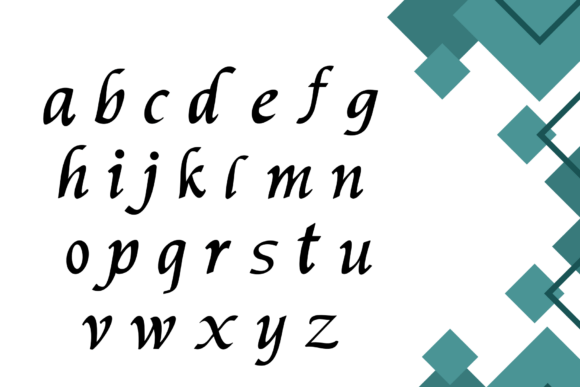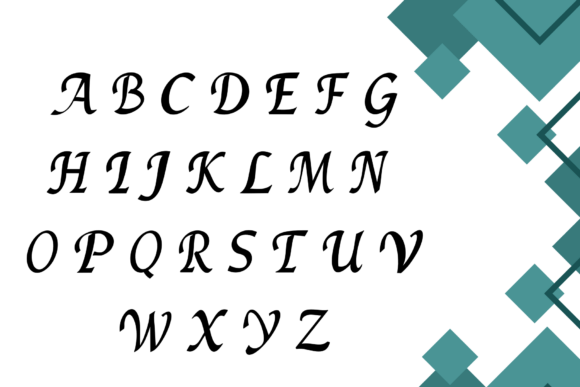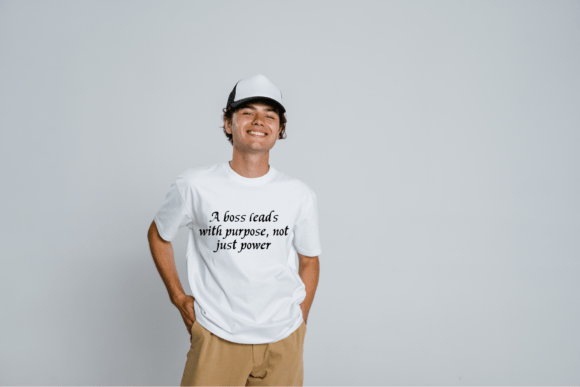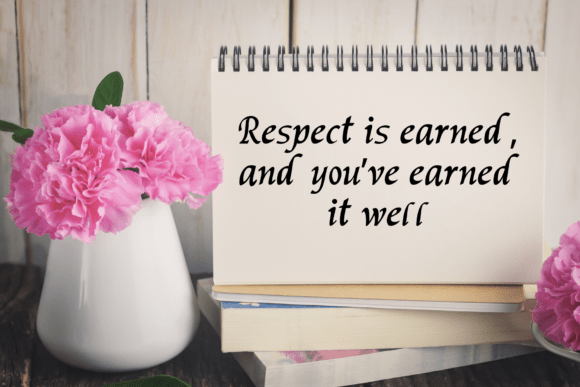
The Perfect Font for the Big Boss
Have you ever stared at a blank page, trying to come up with the perfect way to express your appreciation for your boss on Boss Day? We’ve all been there. The struggle is real, but what if you could find a font that does all the talking for you? Enter the Boss Day Font, a sophisticated decorative serif font designed to make a bold and refined statement.
This elegant font is perfect for making a lasting impression on your boss, whether it’s through a heartfelt card or a professional certificate. With its unique letterforms and eye-catching flow, the Boss Day Font adds a touch of classic elegance with a modern twist, making it ideal for designers looking to convey authority, appreciation, and tasteful design.
Boss Day Font Key Features
- Font Style: A playful and cursive font, ideal for expressing appreciation and gratitude to bosses and supervisors.
- Unique Characteristics: Includes special characters and glyphs, such as smiley faces and celebratory icons, to add a personal touch.
Review of “Boss Day Font”
Overall, I think “Boss Day Font” is a fun, playful font that can be used for various purposes, especially for creating celebratory materials like cards and posters. ✨
Here are some things that work well in this font:
- Unique and quirky characters that add a touch of personality to any design.
- Good for creating a casual, informal atmosphere.
- Works well for short texts and titles.
- May not be suitable for formal or professional designs due to its playful nature.
- Some characters may not be legible at smaller font sizes.
- Limited language support, which may be a concern for multilingual designs.
- Creating special occasion graphics and cards.
- Designing office decorations and signage.
- Developing marketing materials and promotional campaigns.
- How to use Boss Day Font: Use the Boss Day Font to create a bold and eye-catching title or phrase on the mug, such as “World’s Best Boss” or “Thanks for Being an Amazing Leader.”
- Design Tips: Combine the font with colorful graphics, such as a bright red or blue background, and add a cute coffee cup design to match the theme.
- Additional Elements: Add a photo of your boss or a funny meme to make the design more personal and humorous.
- How to use Boss Day Font: Use the font to add a touch of personality to the business card, such as adding a fun title or slogan, or creating a custom logo.
- Design Tips: Combine the font with a modern and sleek design, such as a clean white or gray background, and add a professional photo of your boss.
- Additional Elements: Add a custom icon or graphic to match the industry or profession of your boss.
- How to use Boss Day Font: Use the font to add a touch of whimsy and fun to the invitation, such as adding a
Q: What is Boss Day Font and when is it typically used?
Boss Day Font is a custom font design used to celebrate Boss’s Day, a holiday honoring and appreciating one’s supervisor or manager. It is typically used on October 16th, the official Boss’s Day date in the United States.
Celebrating Boss Day with Style
Project 1: Customized Coffee Mugs
Create personalized coffee mugs for your boss with a fun and playful design.
Project 2: Customized Business Cards
Create unique and stylish business cards for your boss with the Boss Day Font.
Project 3: Digital Invitations
Create digital invitations for Boss Day with a modern and stylish design.